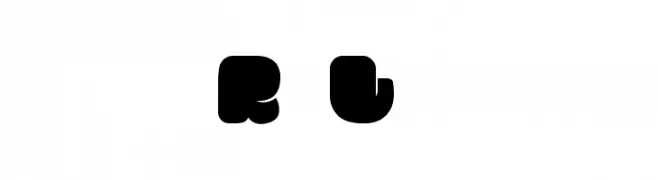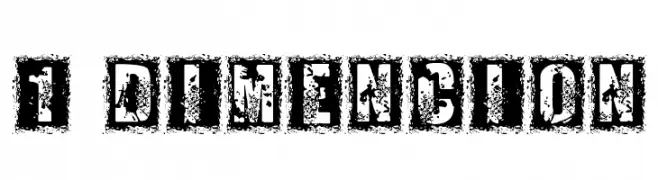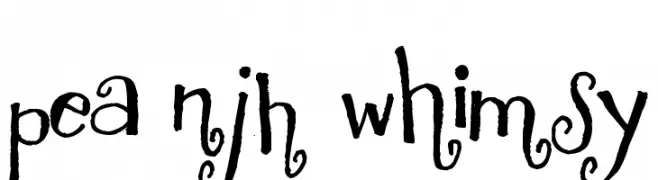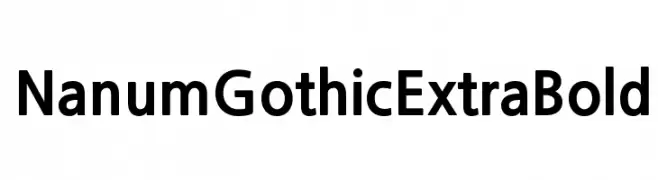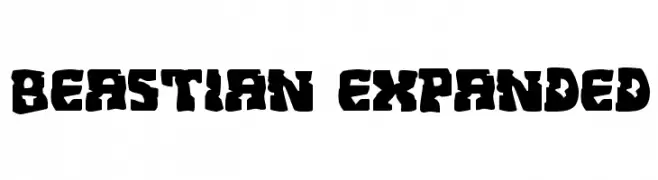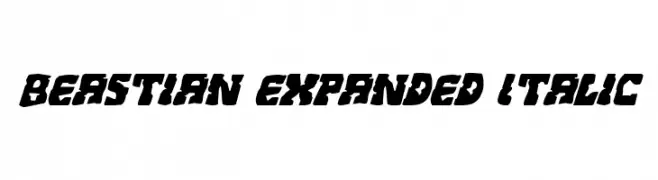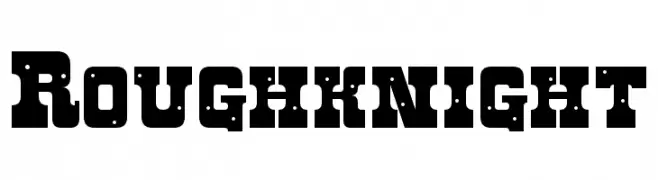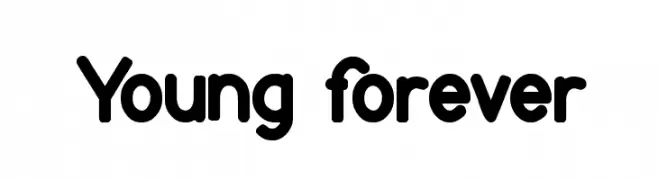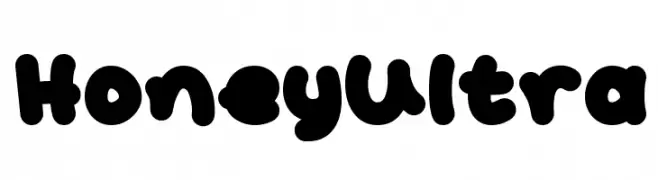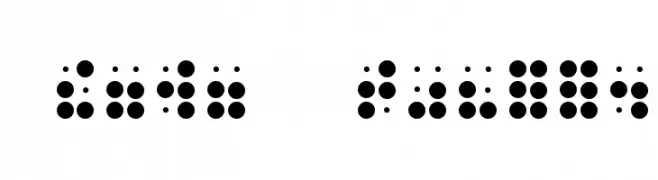
A bold, rounded font with a playful and modern style.
A whimsical, hand-drawn font with playful curls and a lively style.
A bold, playful, and irregular font with a hand-drawn, vintage aesthetic.
A bold, slab serif font with a vintage Western style.
A bold, modern sans-serif font with uniform weight and minimal contrast.
A bold, rugged font with a handcrafted feel and strong visual impact.
A bold, expanded, and italicized font with a modern and dynamic style.
A bold, futuristic font with geometric and symmetrical design elements.
A bold, rounded font with a futuristic and playful style.
A bold, stencil-style font with a rugged, distressed look.
A bold, rounded font with a playful and modern style.
A bold, industrial-style font with mechanical elements and decorative cutouts.
A bold, rounded font with a playful and modern aesthetic.
A bold, rounded font with smooth curves and a playful style.
A bold, rounded font with a playful and modern aesthetic.
A bold, blocky, and playful font with a cartoonish style.
A bold, playful font with thick, rounded characters and a bubbly appearance.
A unique blend of Braille and serif typeface for inclusive typography.
A bold, playful font with thick, rounded characters and a strong presence.
A bold, rounded font with a playful and modern style.
A bold, modern font with a dynamic gradient effect.
A playful, whimsical font with circular dot embellishments and a smooth, flowing style.
A hand-drawn, sketch-like font with uneven weights and rough edges.
A bold, playful font with rounded, cartoonish characters and tight spacing.
A bold, distressed font with a hand-drawn, grunge aesthetic.
A bold, playful font with chunky, irregular shapes and a whimsical style.
Bold, distressed style with both solid and outlined versions for versatile use.
A bold, playful font with thick, rounded strokes and a whimsical appearance.